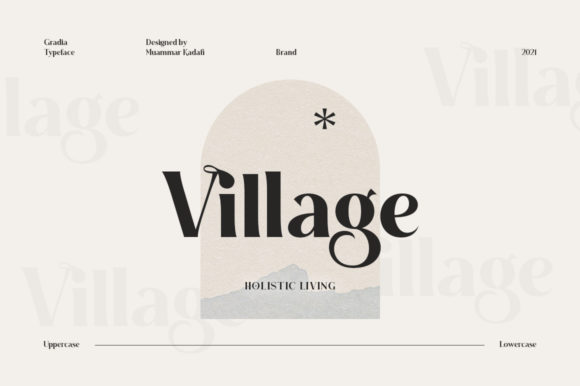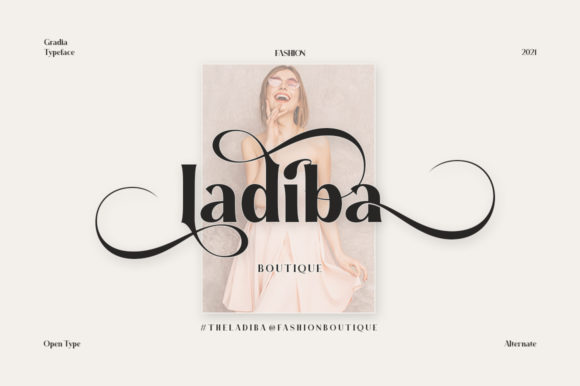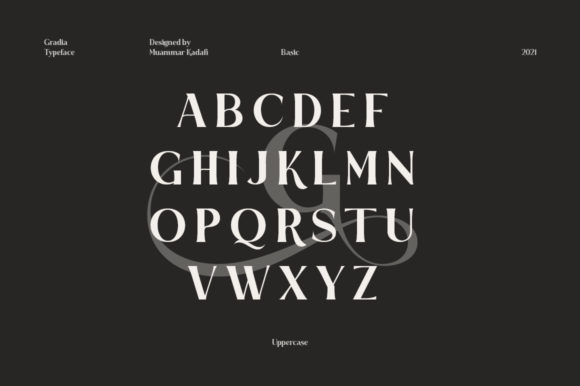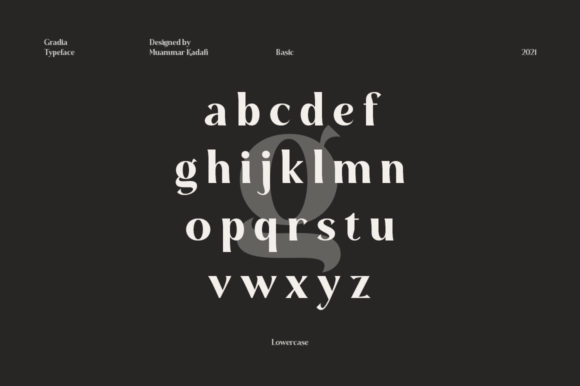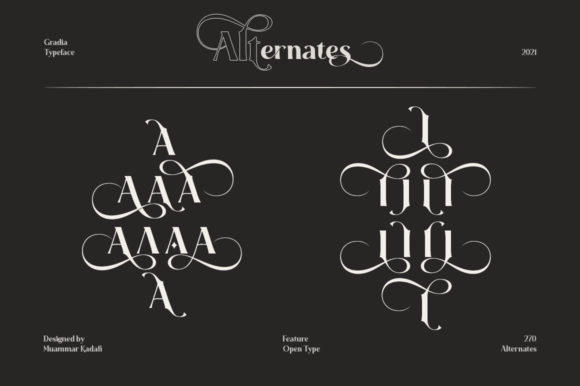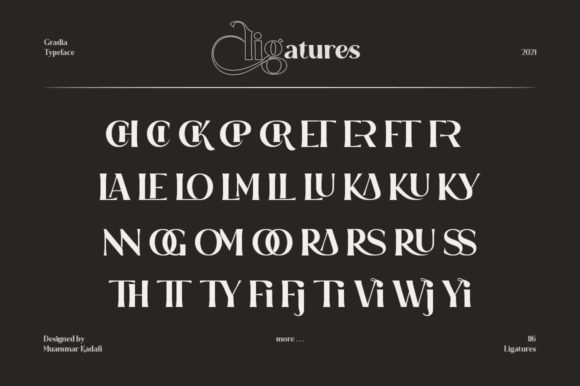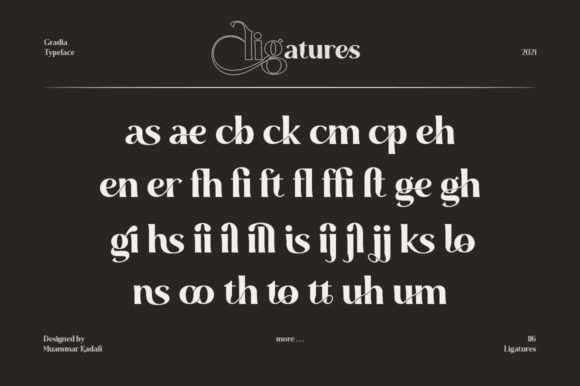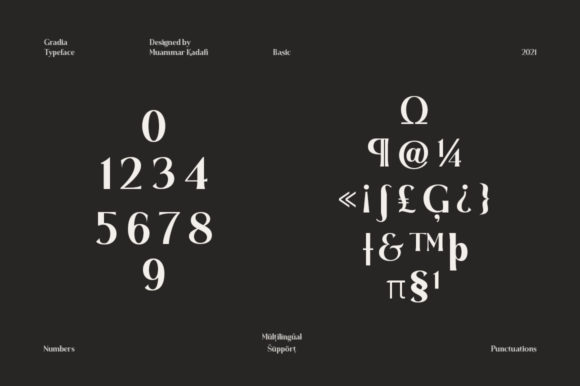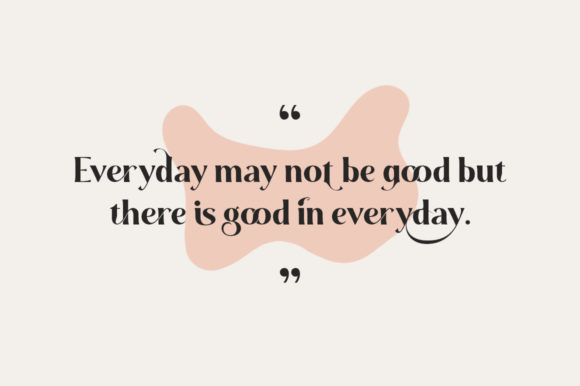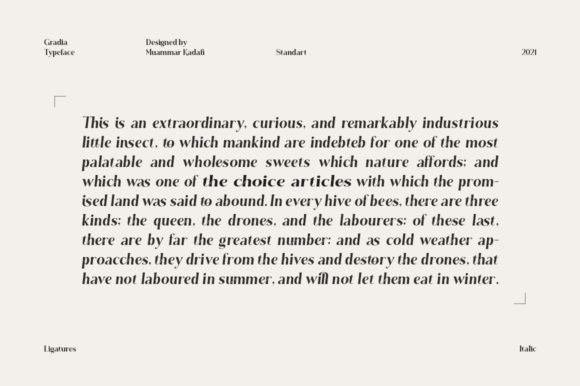
Gradia
Gradia: A Unique and Elegant Slab Serif Font
Gradia is a distinctive slab serif font that combines uniqueness with elegance. This versatile typeface is designed to enhance a wide range of design projects, making it a valuable addition to any designer’s toolkit.
Key Features of Gradia
• Unique Design: Offers a one-of-a-kind look that sets it apart from typical fonts.
• Elegant Aesthetic: Provides a refined and sophisticated appearance suitable for various applications.
• Slab Serif Structure: Incorporates the characteristic thick, rectangular serifs typical of slab serif fonts.
• Versatile Application: Suitable for a wide range of projects, from invitation cards to branding.
• Typographic Excellence: Designed with attention to detail for optimal readability and visual appeal.
Ideal Uses for Gradia
Gradia’s unique characteristics make it particularly well-suited for:
• Invitation cards and stationery
• Magazine layouts and headlines
• Logo design and branding projects
• Signage and display typography
• Book covers and editorial designs
• Website headers and digital content
When incorporating Gradia into your designs, consider these tips:
• Use for headlines or short blocks of text to showcase its unique and elegant style
• Experiment with different sizes to highlight the font’s distinctive details
• Take advantage of its versatility across various design projects
Gradia is an excellent choice for designers looking to add a unique and elegant slab serif font to their typographic toolkit. Its versatility and distinctive character make it stand out in the world of typography. Whether you’re working on logo designs for sophisticated brands, creating layouts for magazines, or developing invitations that require a touch of elegance, Gradia offers the perfect blend of uniqueness and refinement.
Furthermore, Gradia’s adaptability allows it to shine in various contexts. From vintage-inspired designs with a modern twist to more playful layouts that need a touch of sophistication, this font can elevate your projects. Its elegant style works particularly well in designs that require a thoughtful and refined mood.
In conclusion, Gradia is a font that lives up to its name, adding a graceful and distinctive flair to your designs. Its ability to work in both elegant, minimalist projects and more elaborate layouts showcases its flexibility. For those looking to add a touch of contemporary elegance to their work, Gradia can even enhance traditional designs with its unique, stylish twist.